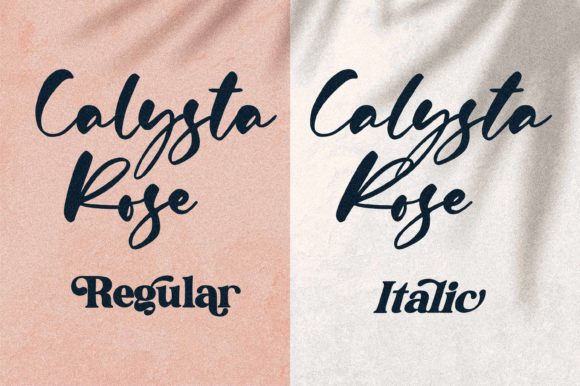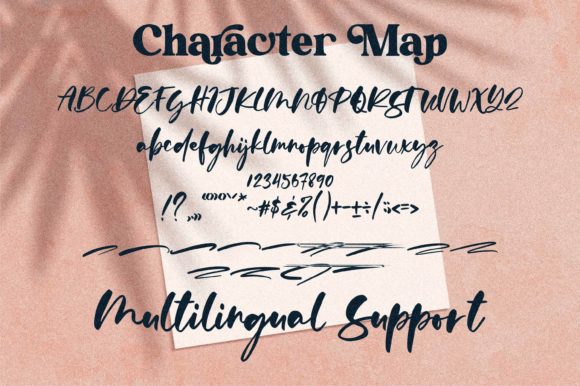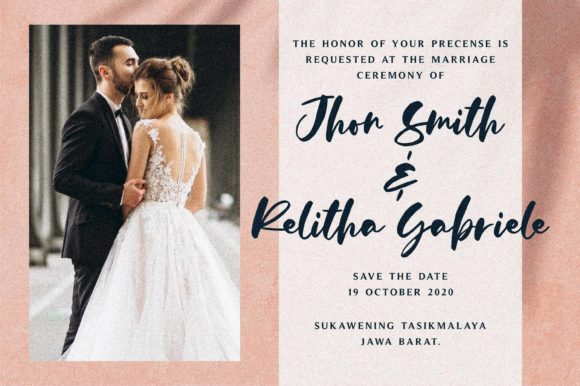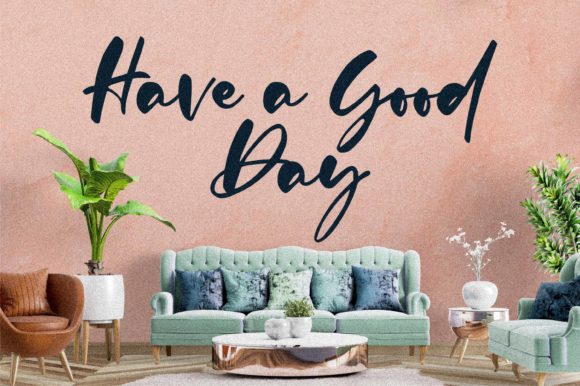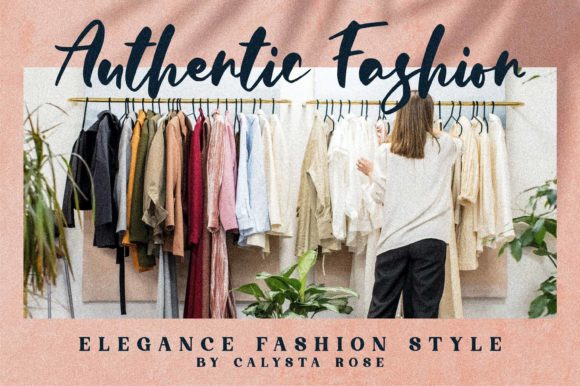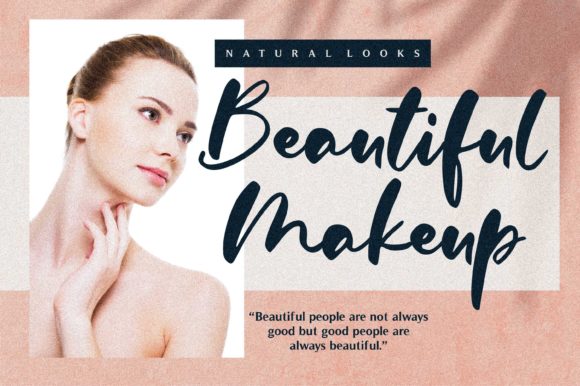
Introducing Calysta Rose Font: The Epitome of Elegance and Charm
Are you a designer or crafter looking for a font that exudes elegance and charm? Look no further than Calysta Rose Font. This beautiful, handwritten font is perfect for a variety of design projects, from wedding invitations and thank you cards to quotes, greeting cards, logos, and business cards.
A Font that Steals the Show
Calysta Rose Font is a stunning addition to any design project that requires a touch of sophistication and whimsy. Its elegant and charming appearance makes it an ideal choice for designers and crafters who want to create beautiful and eye-catching designs. Whether you’re working on a wedding invitation, a thank you card, or a business card, Calysta Rose Font is sure to impress.
One of the best things about Calysta Rose Font is its versatility. It can be used for a wide range of design projects, including:
- Wedding invitations and thank you cards
- Quotes and greeting cards
- Logos and business cards
Wherever you need to add a touch of elegance and charm, Calysta Rose Font is the perfect choice.
Calysta Rose Font is PUA (Private Use Area) encoded, which means that you can access all of the glyphs and swashes with ease. This makes it easy to customize your designs and add your own personal touch. With PUA encoding, you can:
- Access a wide range of glyphs and swashes
- Easily customize your designs
- Add your own personal touch to your projects
Why Choose Calysta Rose Font?
So why choose Calysta Rose Font for your design projects? Here are just a few reasons:
- Elegant and charming appearance
- Versatile and can be used for a wide range of design projects
- Perfect for designers and crafters who want to add a touch of sophistication to their designs
Tips for Using Calysta Rose Font
Here are a few tips for using Calysta Rose Font in your design projects:
- Use it for headings and titles to add a touch of elegance
- Pair it with a simple font for body text to create contrast
- Use it to create beautiful and eye-catching social media graphics
Calysta Rose Font is a beautiful and elegant font that is perfect for designers and crafters who want to add a touch of sophistication to their designs. With its charming appearance, versatility, and PUA encoding, it’s an ideal choice for a wide range of design projects. Whether you’re working on a wedding invitation, a business card, or a social media graphic, Calysta Rose Font is sure to impress.